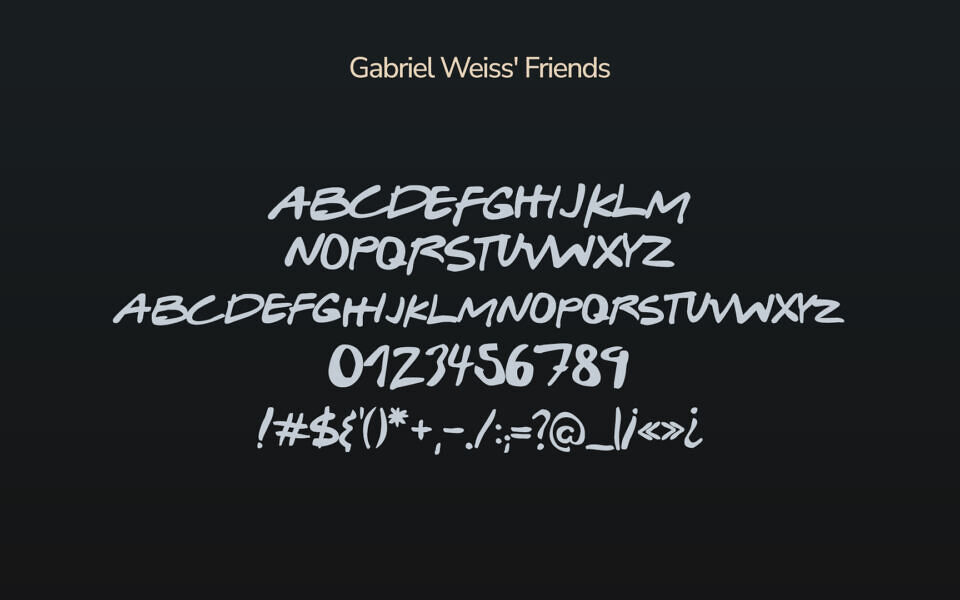
Gabriel Weiss’ Friends is a playful handwritten font inspired by the iconic Friends TV show logo. It features smooth, rounded strokes and a casual, slightly irregular style that gives it a friendly, informal feel. Perfect for fun designs, logos, and creative projects, it brings a nostalgic and approachable vibe with its bold, hand-drawn appearance.
The file includes two fonts based on the Friends logo font: Gabriel Weiss’ Friends font and Minus Cre font by Fred Cre. You can combine the two to create a near-perfect Friends logo, with minor alterations compared to the original.